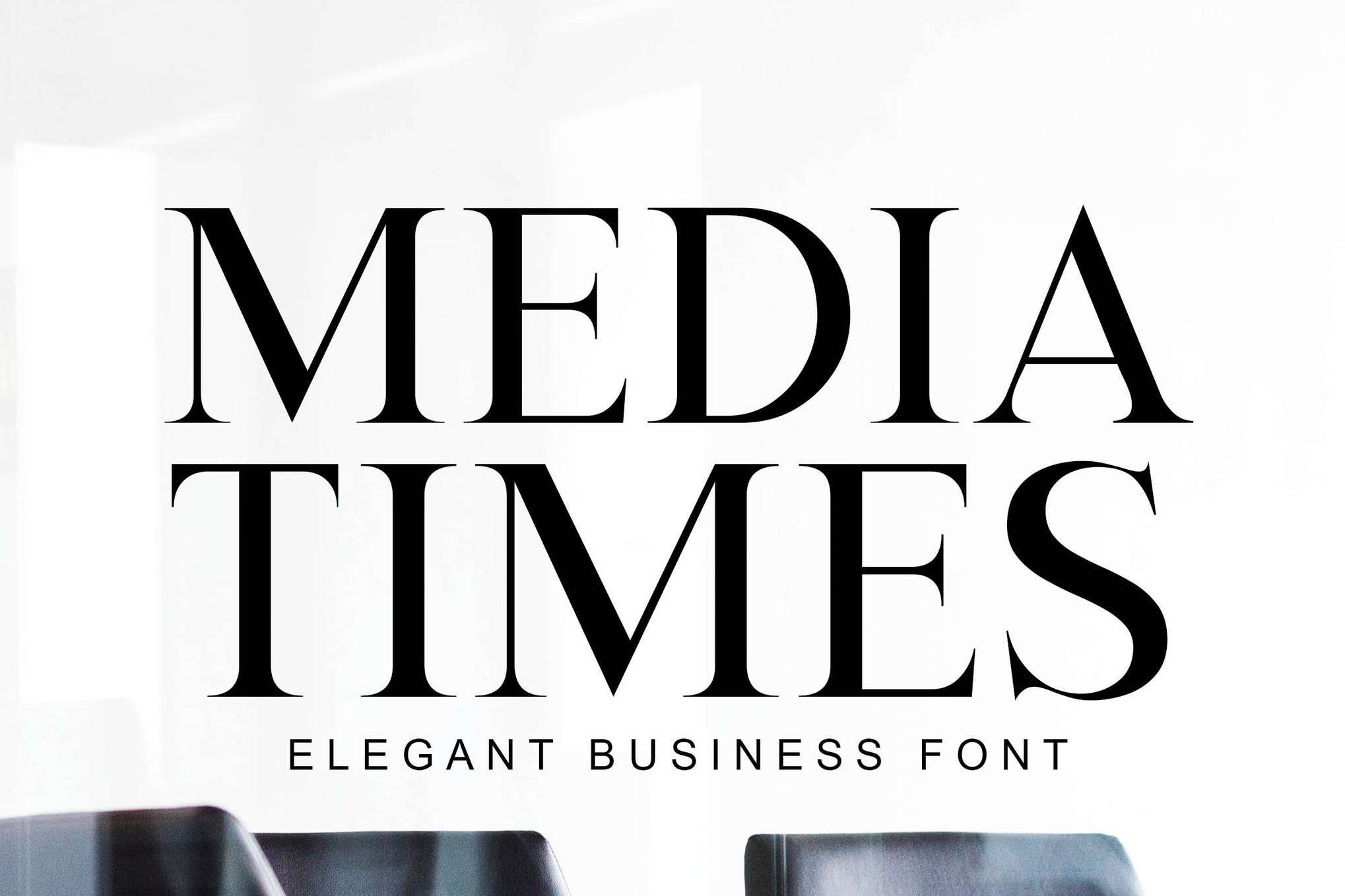
Media Times Font
Media Times Font is perfect for newspaper design, magazine layouts, editorial branding, news website typography, publishing house identities, broadcast media graphics, journalistic applications, and professional communication materials. This authoritative typeface works exceptionally well in both digital publishing platforms and traditional print media where credibility, readability, and editorial excellence are fundamental design requirements.
What makes Media Times Font so exciting is its masterful blend of classical newspaper typography tradition with contemporary media functionality that creates the perfect voice for modern journalism and editorial communications. The font features refined letterforms with excellent legibility at small sizes, optimized character spacing, and professional proportions that ensure clear information delivery while maintaining editorial authority. Its trustworthy personality and journalistic heritage make it ideal for media brands seeking to establish credibility and communicate reliable information to audiences who value accurate reporting and professional journalism.
The Media Times Font family includes comprehensive weight variations from light to bold, along with italic styles and editorial alternates. Each style maintains the typeface's journalistic character while offering extensive multilingual support, professional numerals, editorial-focused punctuation marks, and special characters designed to enhance news communications and international media applications across diverse publishing platforms.
This remarkable typeface represents the perfect evolution of newspaper typography adapted for multi-platform modern media applications. Whether you're developing news organization identities, creating digital magazine layouts, or designing broadcast graphics, Media Times Font Free Download delivers the editorial credibility and versatility needed to communicate information effectively across all media channels. The font's journalistic aesthetic makes it particularly effective for newspapers, magazines, broadcasting companies, and organizations prioritizing clear communication and editorial integrity.
The meticulously engineered legibility and optimized reading performance in Media Times Font ensure exceptional clarity while maintaining its distinctive editorial character. Its professional versatility allows seamless application from dense news columns to impactful headlines, making it an essential tool for media professionals creating authoritative communications that inform and engage audiences seeking reliable news and editorial content.